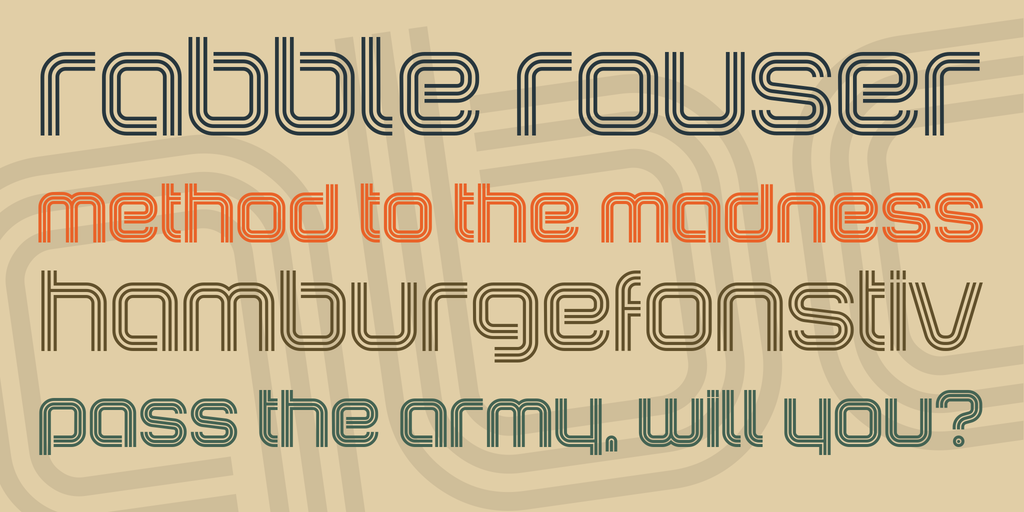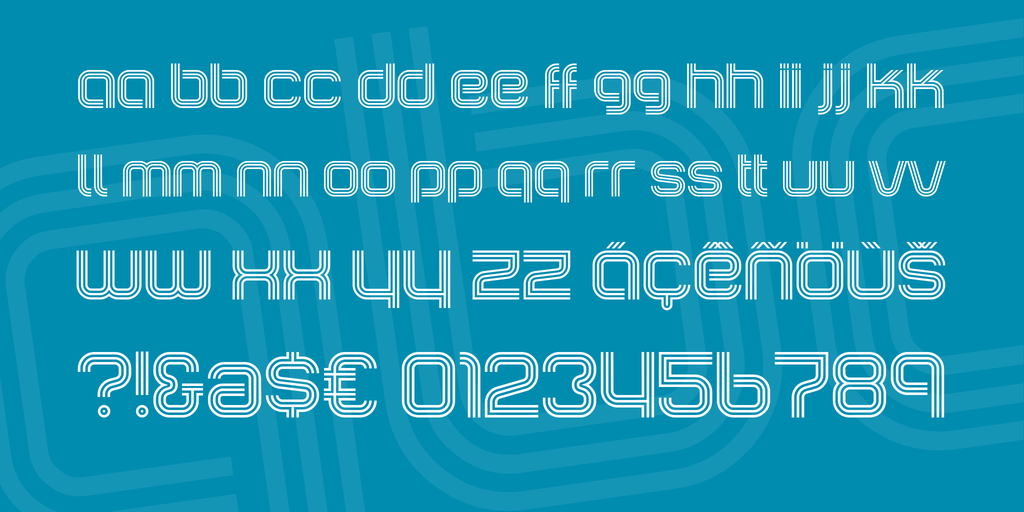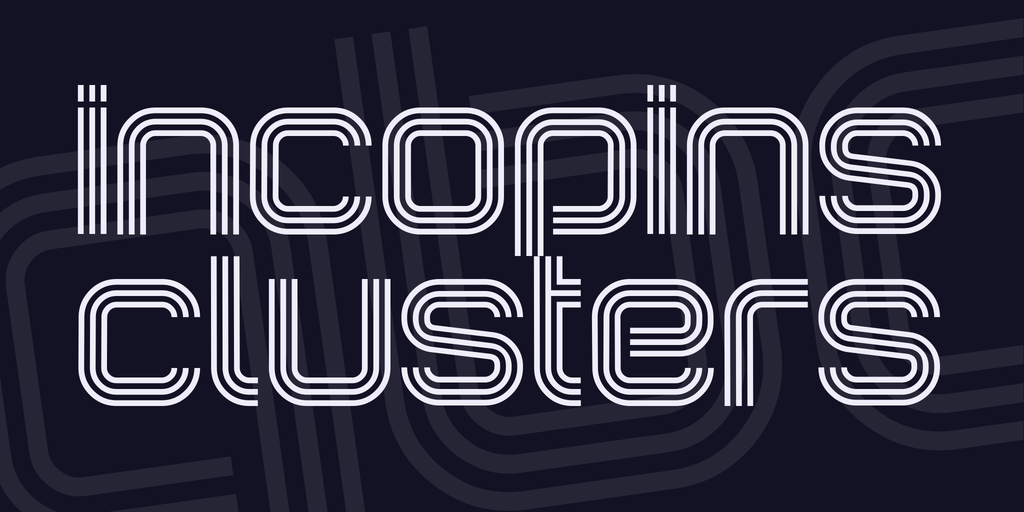
Incopins Clusters Font Family
Translation of the original German description: Towards the end of the year 2013 I actually had no intention of to create any new fonts and so I spent my time visiting my favorite forum.
There I encountered a request of a sports fan who wanted to surprise for his soccer friends, looking for the font of his soccer club logo, a font that reminded of Herzogenaurach – No, not for Silberlöwe or Wälzlager. Unfortunately, nobody was able to help, so I took a closer look at four letters and two digits, and developed a complete character set in Latin script in just 4 ½ hours.
But somehow that inspired me to complement this work, so I added diacritics and then also the Cyrillic alphabet.
Oh, the naming of the font? I simply used one of my saved “reCAPTCHA” words … why not?